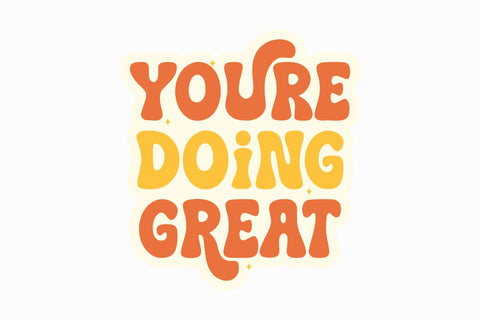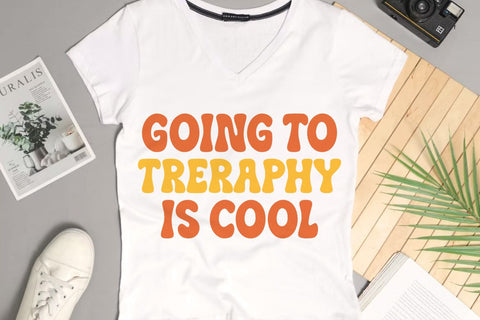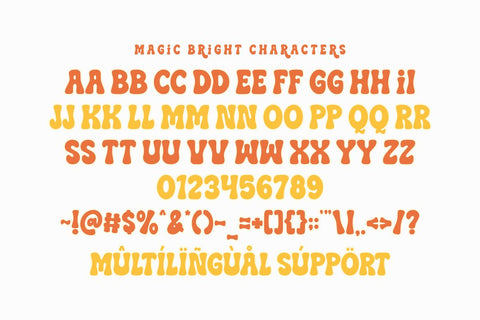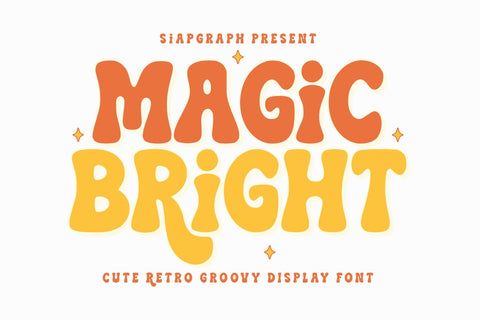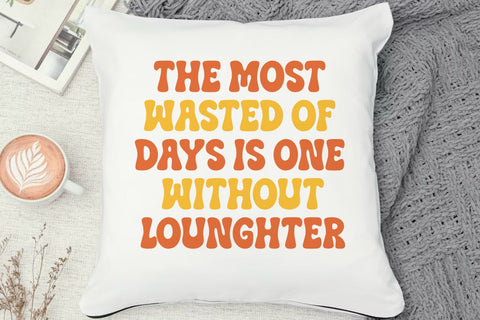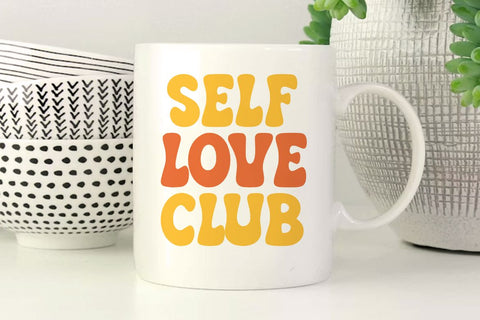
Magic Bright - Cute Retro Groovy Font
Magic bright is a cute retro groovy display font that brings a touch of 70s-inspired whimsy to your creative projects. Featuring bold, wavy letterforms and a bouncy, approachable aesthetic, this typeface is crafted to evoke feelings of joy and optimism. Its clean and substantial construction is specifically optimized for the crafting community, ensuring a seamless and frustration-free experience for vinyl cutting, sublimation, and high-quality digital printing.
Perfect for: creating high-impact SVG cut files, personalized retro-themed apparel, vibrant vinyl stickers, custom mugs, playful event branding, nursery wall art, and trendy social media graphics. Whether you are running a professional Print on Demand (POD) shop or working on a unique DIY project, this font provides the bold readability and whimsical personality to make your designs pop.
Great for holiday themes such as Summer Break, Birthdays, Music Festivals, and End-of-Year parties, adding a cheerful, energetic, and nostalgic vibe to all your seasonal designs!